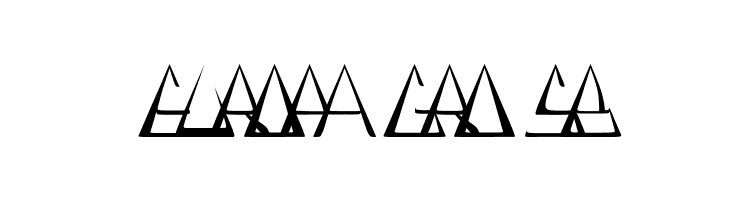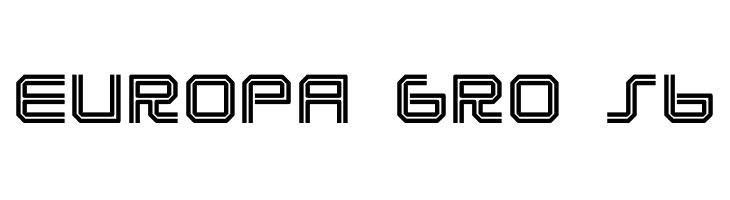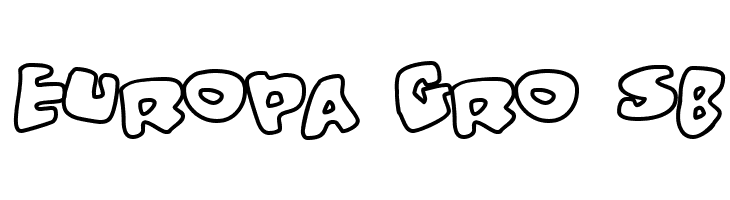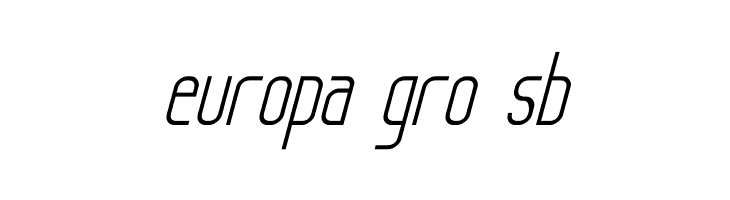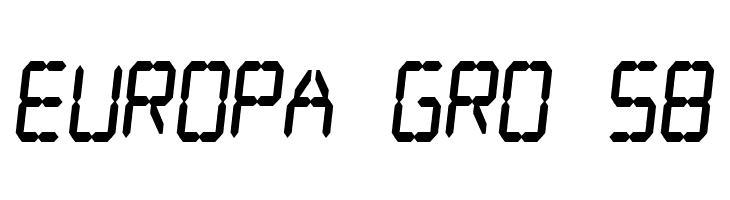
Killer boots Font
Font by Jacob Fisher - www.pizzadude.dk
A bold, angular font with a futuristic and edgy design.
Nostalgic Font
A decorative font with elegant swirls and curls, perfect for artistic projects.
Flashback version 3 Font
Font by Jacob Fisher - www.pizzadude.dk
A bold, geometric font with a 3D effect, ideal for retro-themed projects.
Mad scientist Font
Font by Jacob Fisher - www.pizzadude.dk
A bold, rounded font with a playful, retro vibe.
Ding Dong Daddyo NF Font
Font by Nick Curtis - www.nicksfonts.com
A bold, vintage-style font with playful serifs and high contrast.
Speedball No 3 NF Font
Font by Nick Curtis - www.nicksfonts.com
An artistic and decorative font with geometric and playful elements.
Happy Campers NF Font
Font by Nick Curtis - www.nicksfonts.com
A bold, serif font with strong strokes and classic elegance.
Ghostwriter Font
Font by Jacob Fisher - www.pizzadude.dk
A playful, hand-drawn font with irregular and whimsical letterforms.
UKIJ Kufi Uz Font
Font by Tursun Sultan - Personal-use only. For commercial use please contact owner.
A modern sans-serif font with clean lines and a slightly condensed width.
JP Hand Slanted Font
Font by Jonathan Paterson
A dynamic, slanted handwritten font with fluid strokes and a personal touch.
Old Gate Lane NF Font
Font by Nick Curtis - www.nicksfonts.com
A bold, shadowed serif font with a classic yet modern style.
GlOrY BoLd Font
A bold, angular font with a futuristic and edgy design.
Vitamin Font
Font by Jacob Fisher - www.pizzadude.dk
A bold, playful font with chunky, rounded letters and a whimsical style.
Orgreave Bold Font
Roger White - web.archive.org/web/20120416090521/www.rogersfonts.org.uk/
A bold, classic serif font with strong, thick strokes and a modern twist.
Blue lines Font
Font by Jacob Fisher - www.pizzadude.dk
A bold, striped slab serif font with a unique textured appearance.
VenturisADFStyle-BoldItalic Font
Font by Arkandis Digital Foundry
A bold, italic serif font with a classic and elegant style.
Lackawanna Weed NF Font
Font by Nick Curtis - www.nicksfonts.com
A bold, outlined font with a playful, three-dimensional style.
VenturisADFCd-BoldItalic Font
Font by Arkandis Digital Foundry
A bold, italic serif font with classic elegance and dynamic style.
Digital dream Fat Narrow Font
Font by Jacob Fisher - www.pizzadude.dk